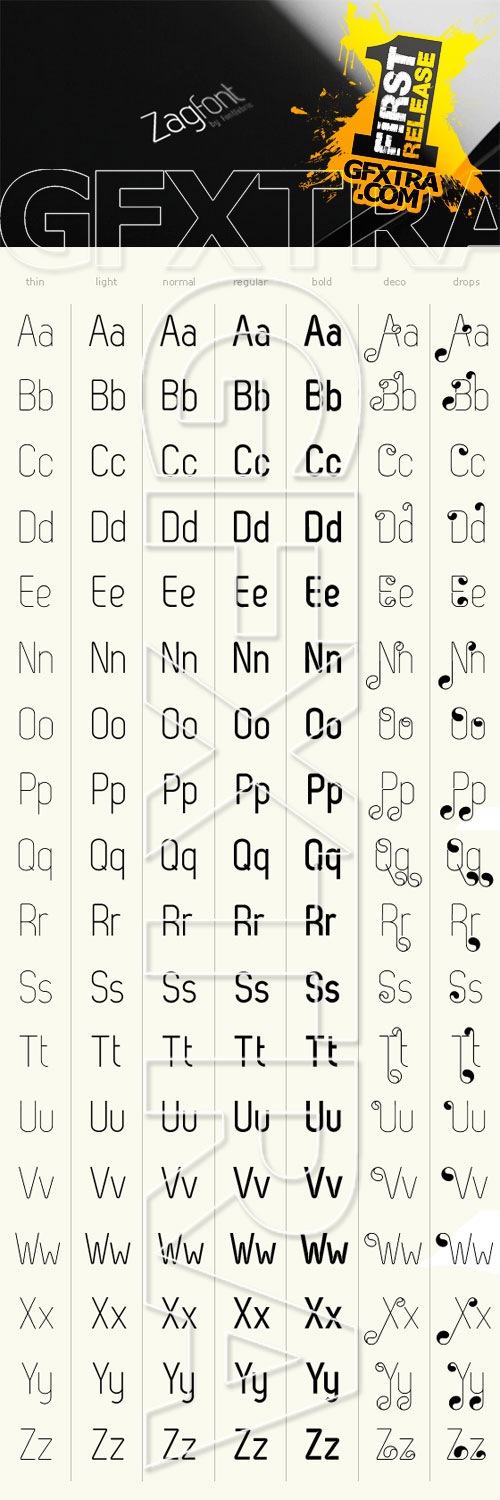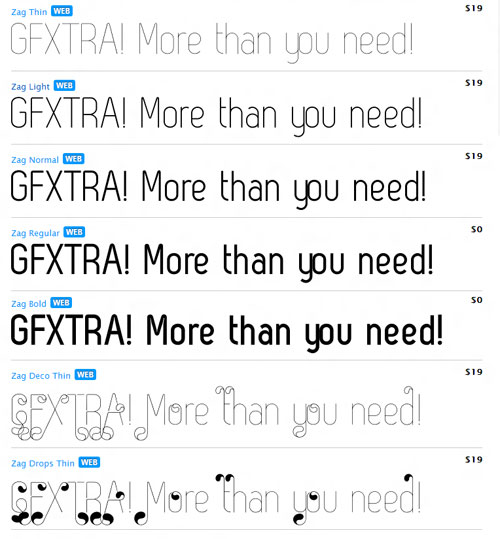
Zag Commercial Font Family! Web, Print and Motion Graphics FULL!
Zag is a custom sans font which is applicable for any type of graphic design - web, print, motion graphics etc and perfect for t-shirts and other items.